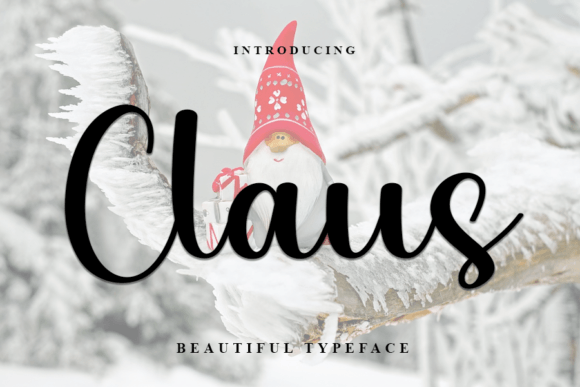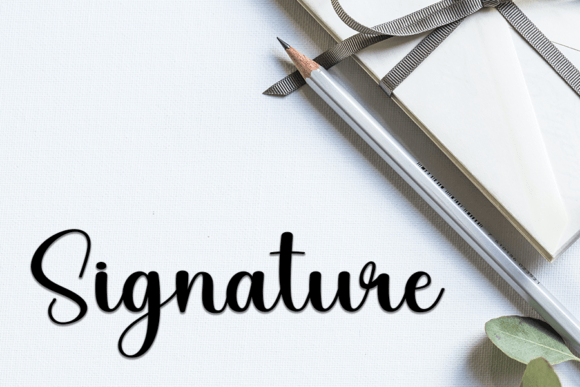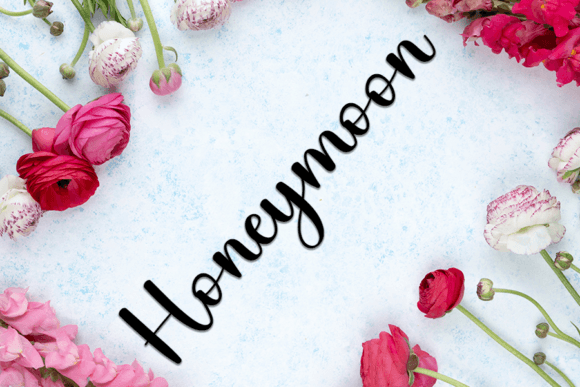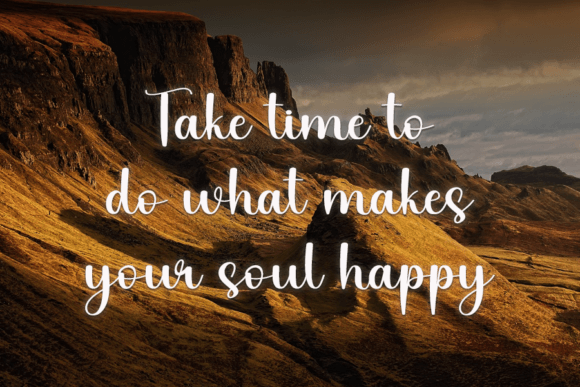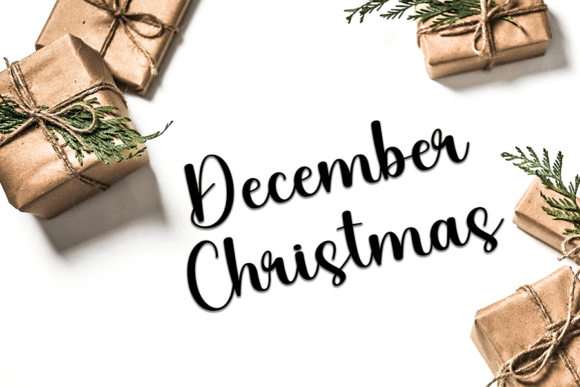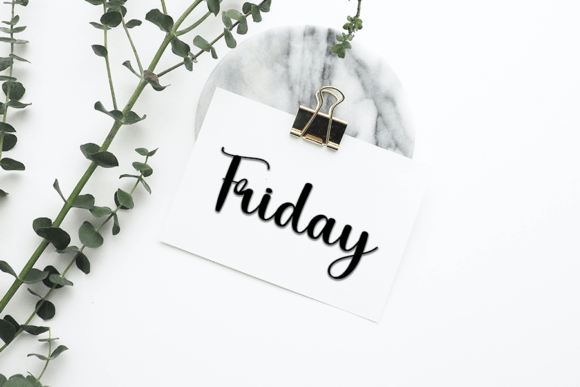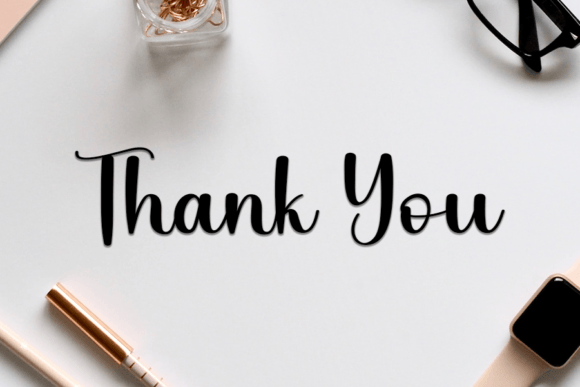
Claus Font
Claus: A Delicate Handwritten Font for Stylish and Unique Creations
If you’re looking for a delicate handwritten font that adds charm and uniqueness to your designs, Claus is the perfect choice. Carefully handcrafted with soft, flowing strokes, Claus brings a cool and modern personality to every project.
Its light and elegant nature makes it an ideal typeface for personal or professional designs that need a handwritten look with a clean and polished finish.
Where Claus Shines Best
Claus is more than just a pretty font—it’s practical too. With legible curves and a consistent baseline, Claus maintains readability while still delivering the stylish, human touch that only handwritten fonts provide.
It works beautifully in many creative applications, including:
• Romantic letters and notes
• Wedding invitations and thank-you cards
• Gourmet food labels and packaging
• Boutique branding and minimalist logos
• Personalized greeting cards and custom merchandise
• Website banners and social media content
Its versatility allows you to adapt it for both casual and formal contexts, giving your work an authentic and memorable visual identity.
Key Features of the Claus Font
What makes Claus stand out among other handwritten fonts? It’s the combination of its elegant form and its user-friendly features. Whether you’re an experienced designer or a DIY creator, Claus makes things easy without compromising quality.
Here’s what you get with this delicate handwritten font:
• Elegant lowercase and uppercase balance
• Smooth ligatures and well-crafted characters
These qualities ensure that Claus not only looks great but also performs well in various design platforms and workflows.
Design with a Personal, Handwritten Touch
Fonts have the power to set the tone. With Claus, you can give your designs a warm, friendly feel while maintaining a clean and professional look. It’s this balance that makes Claus suitable for both expressive and minimal design styles.
Use Claus to:
• Pair with bold serif fonts for contrast
• Add elegance to packaging and product tags
• Design heartfelt social media quotes and posts
• Bring a handcrafted touch to your branding visuals
Whether you’re building a personal brand, designing an invitation, or creating beautiful packaging, Claus is the delicate handwritten font you can rely on. It’s graceful, modern, and easy to use.